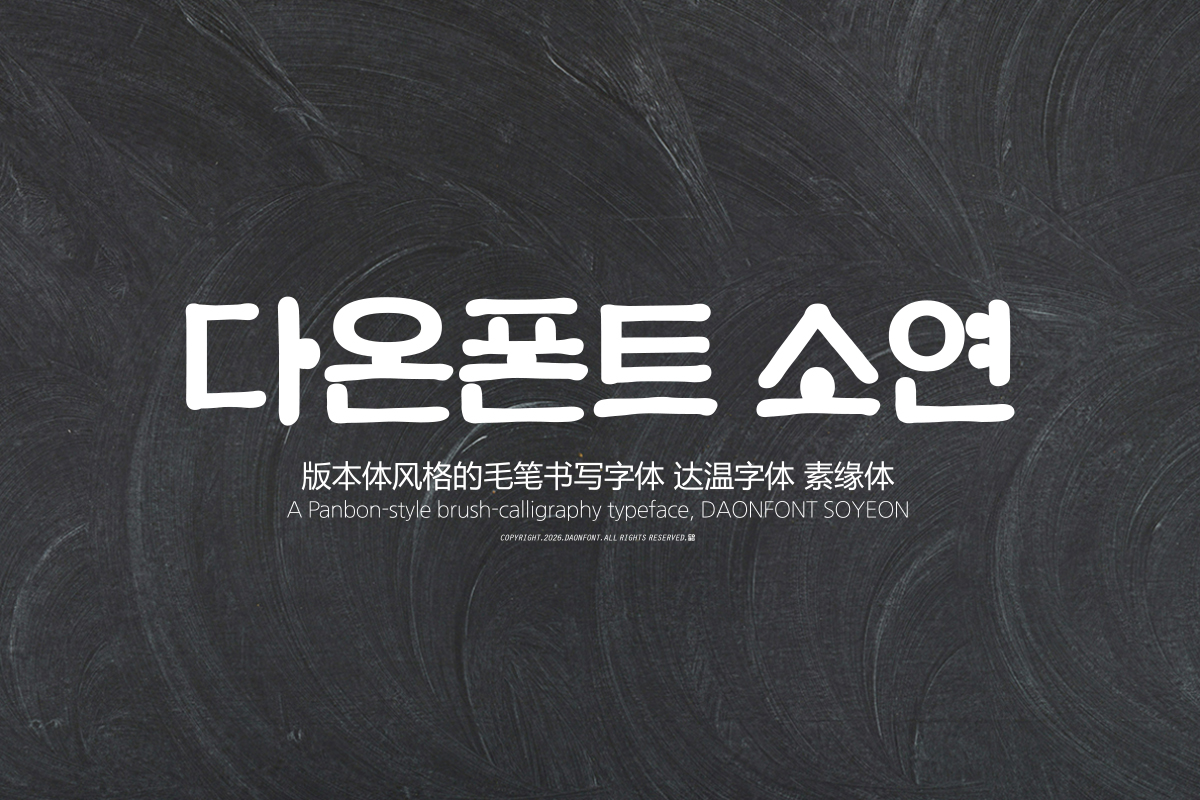
DAON SOYEON(B)
'SOYEON' is a printed-style brushstroke typeface that enhances readability based on a neat structure and stable stroke flow. It is characterized by a balance of naturalness and neatness, achieved by refining forms while maintaining the emotional texture of brushstrokes.